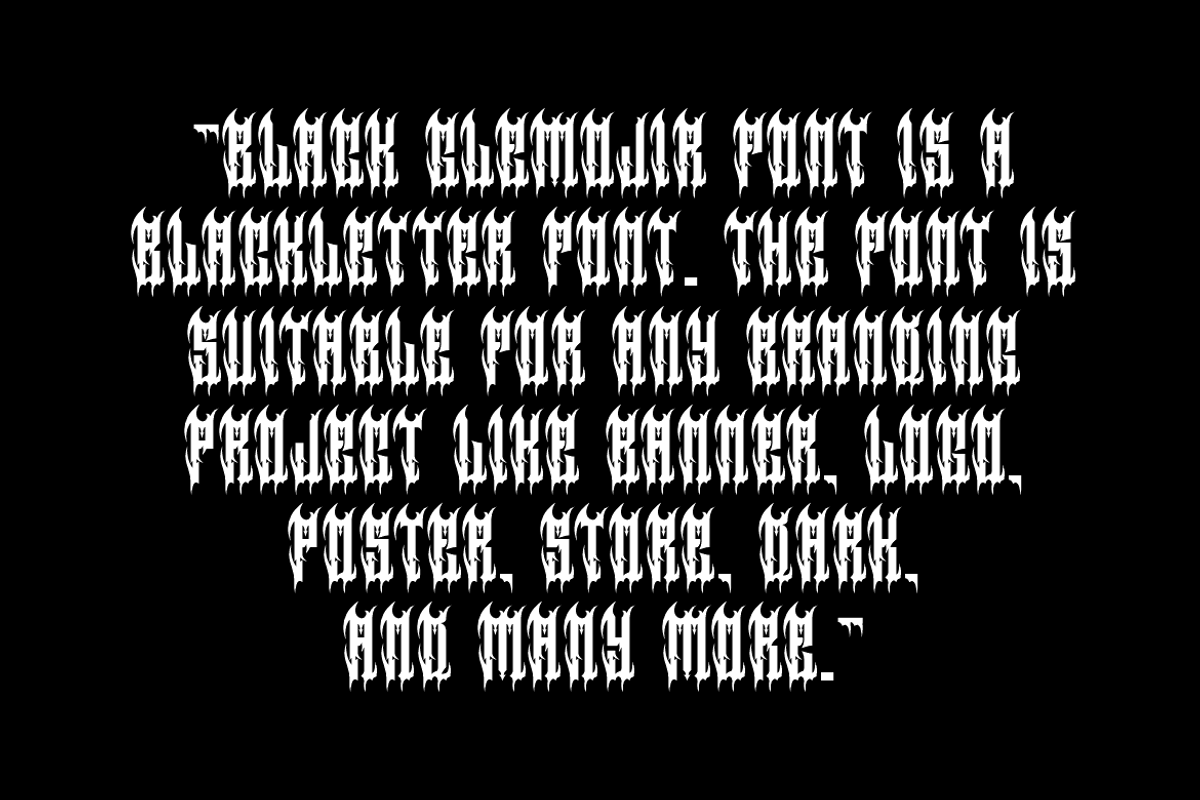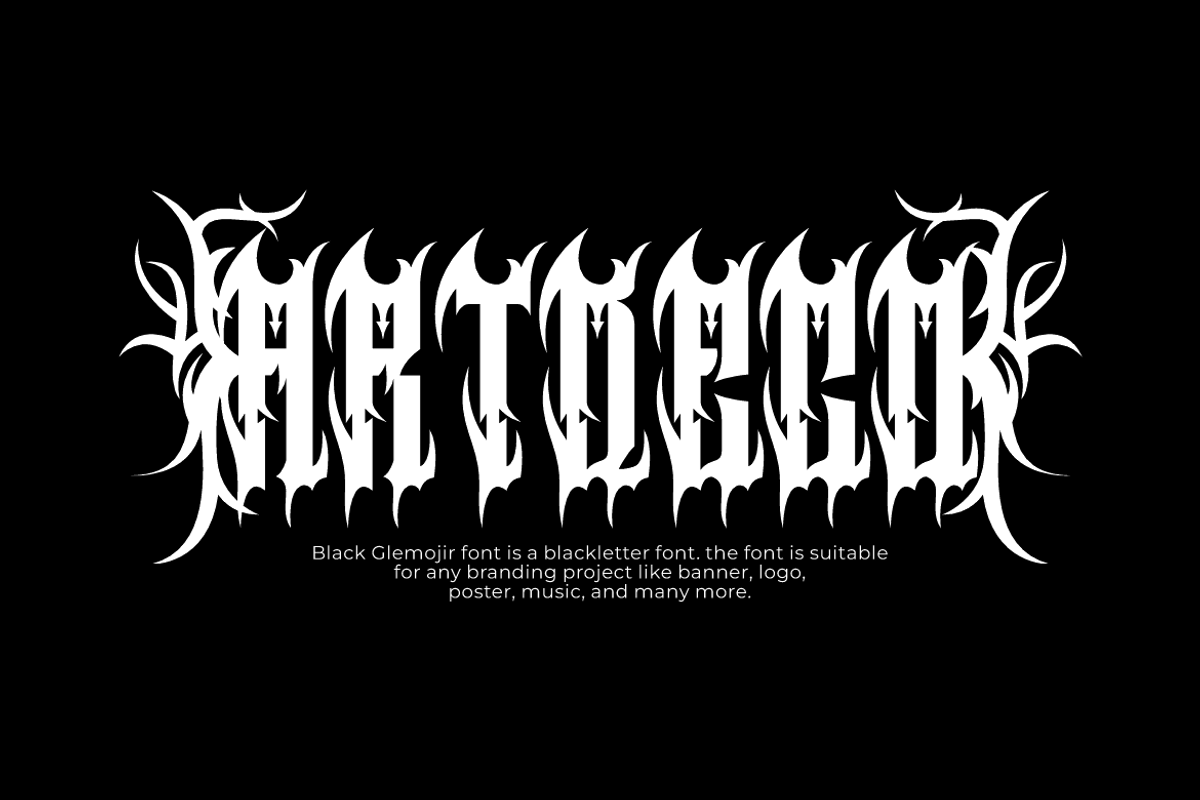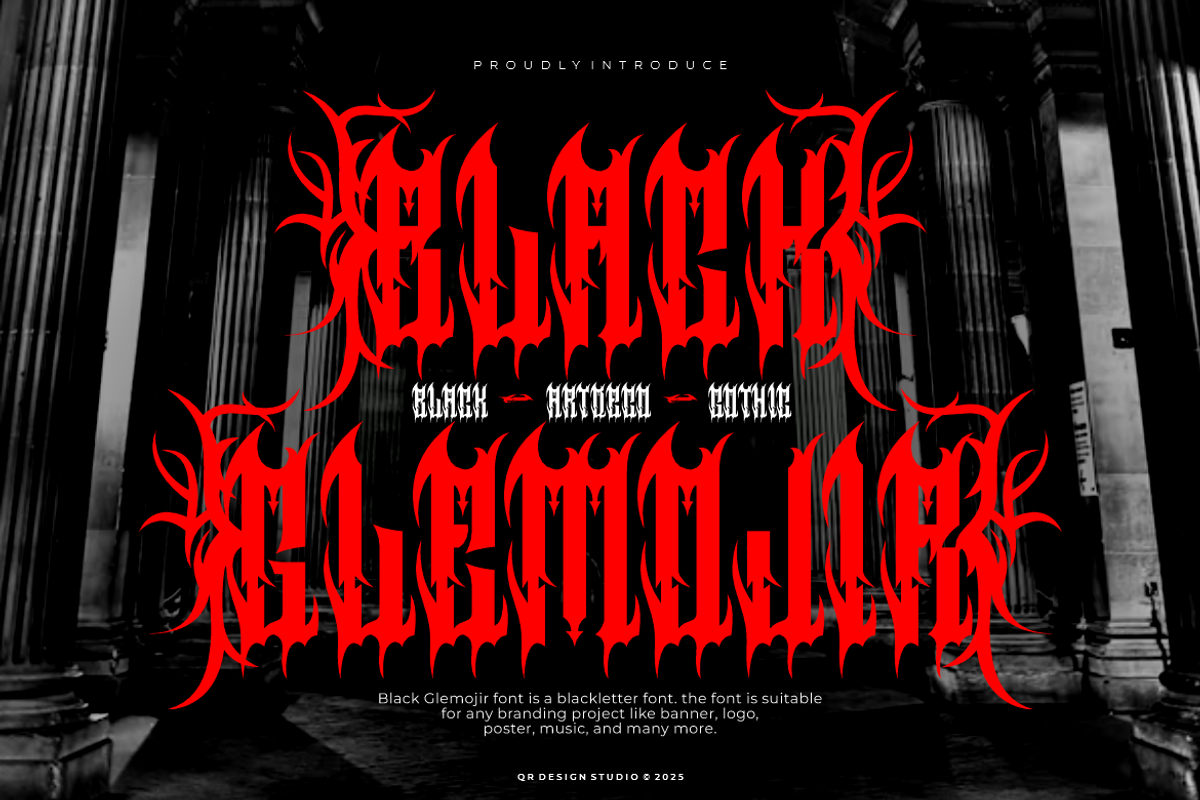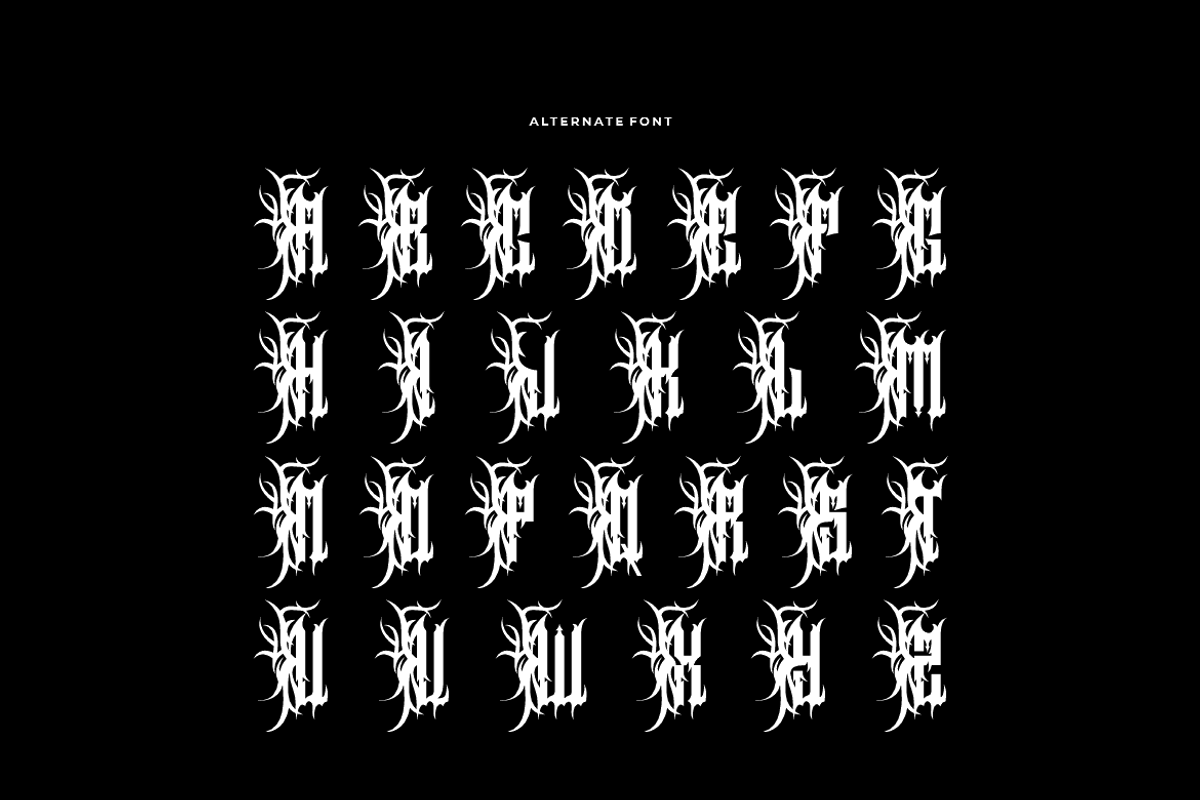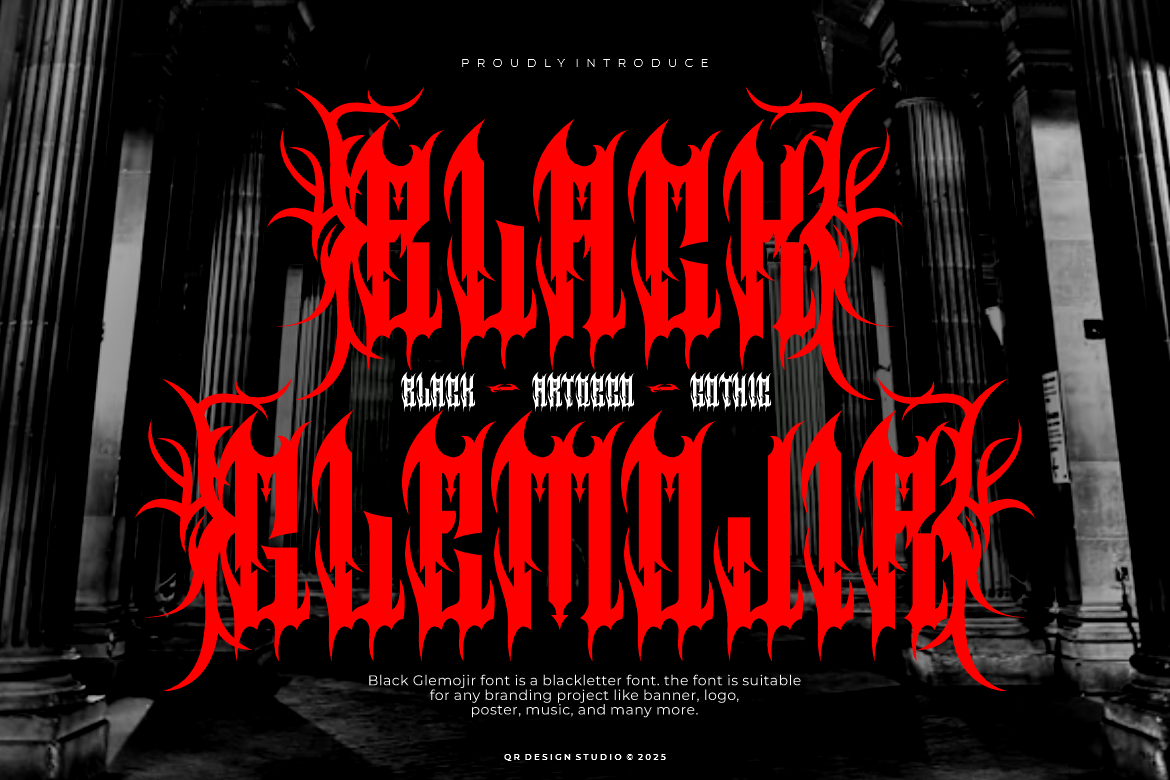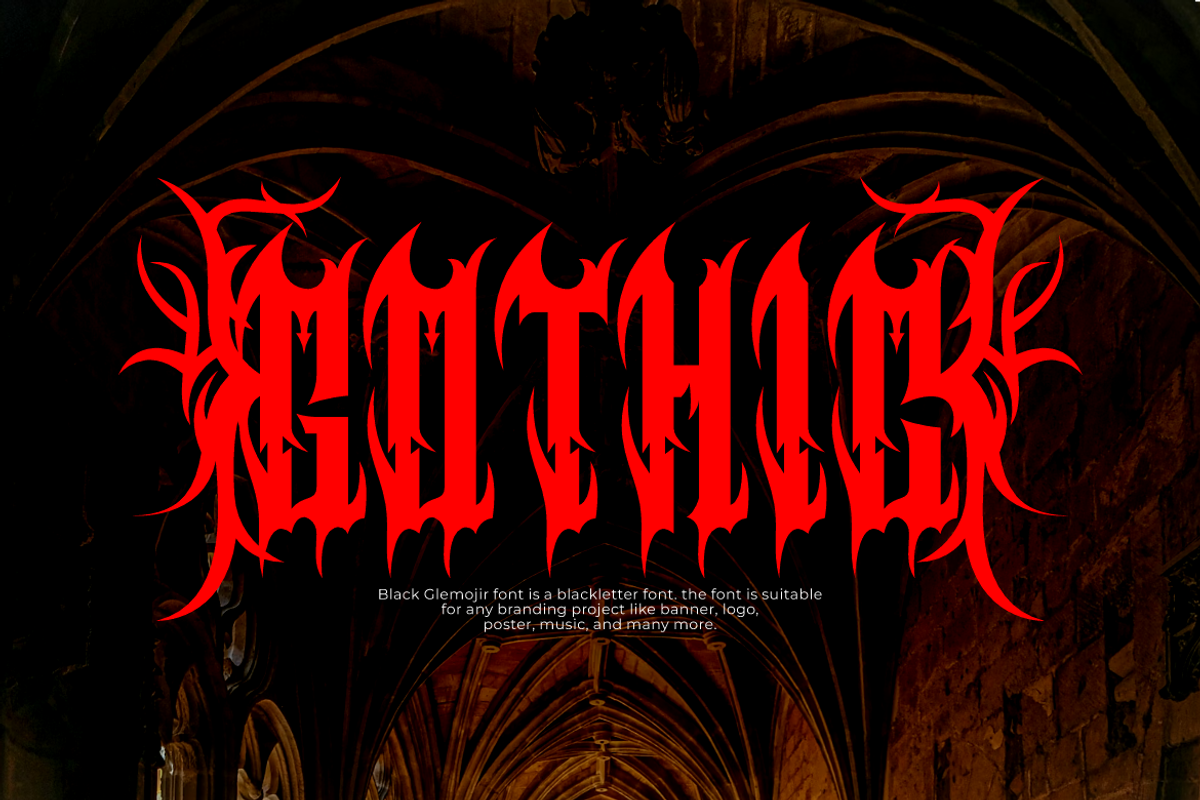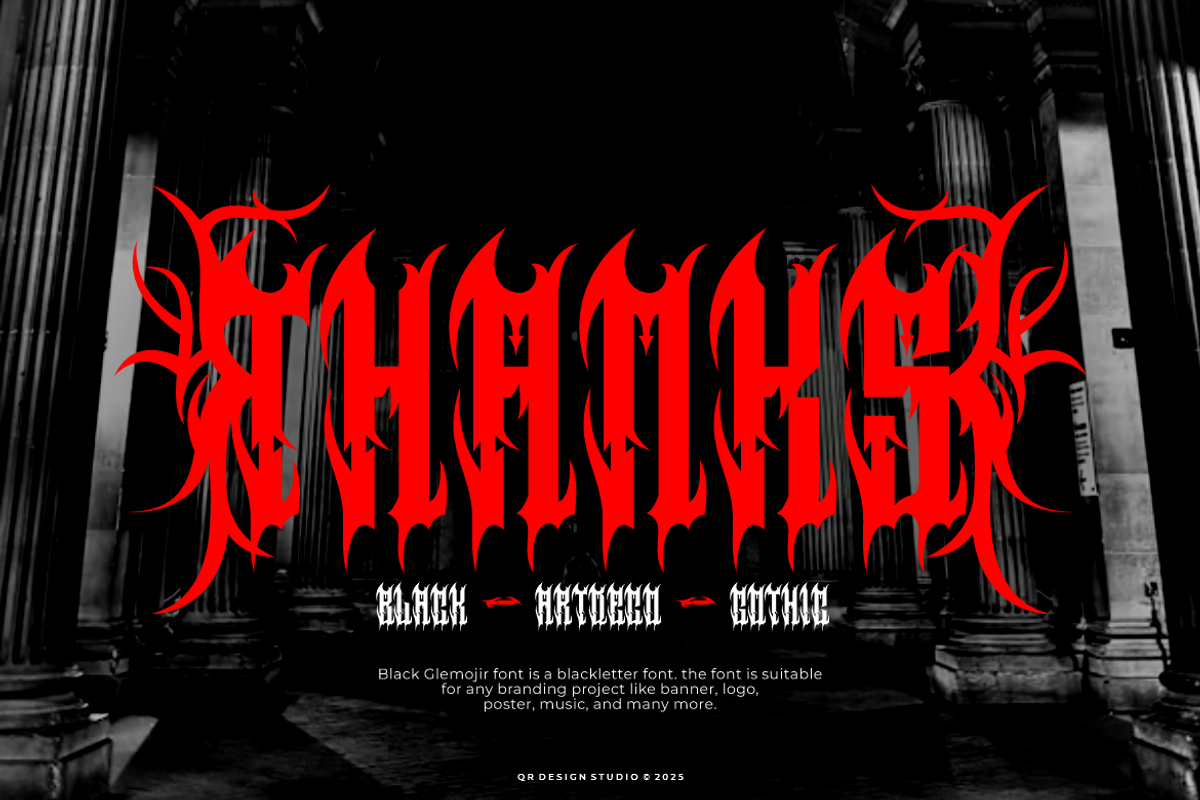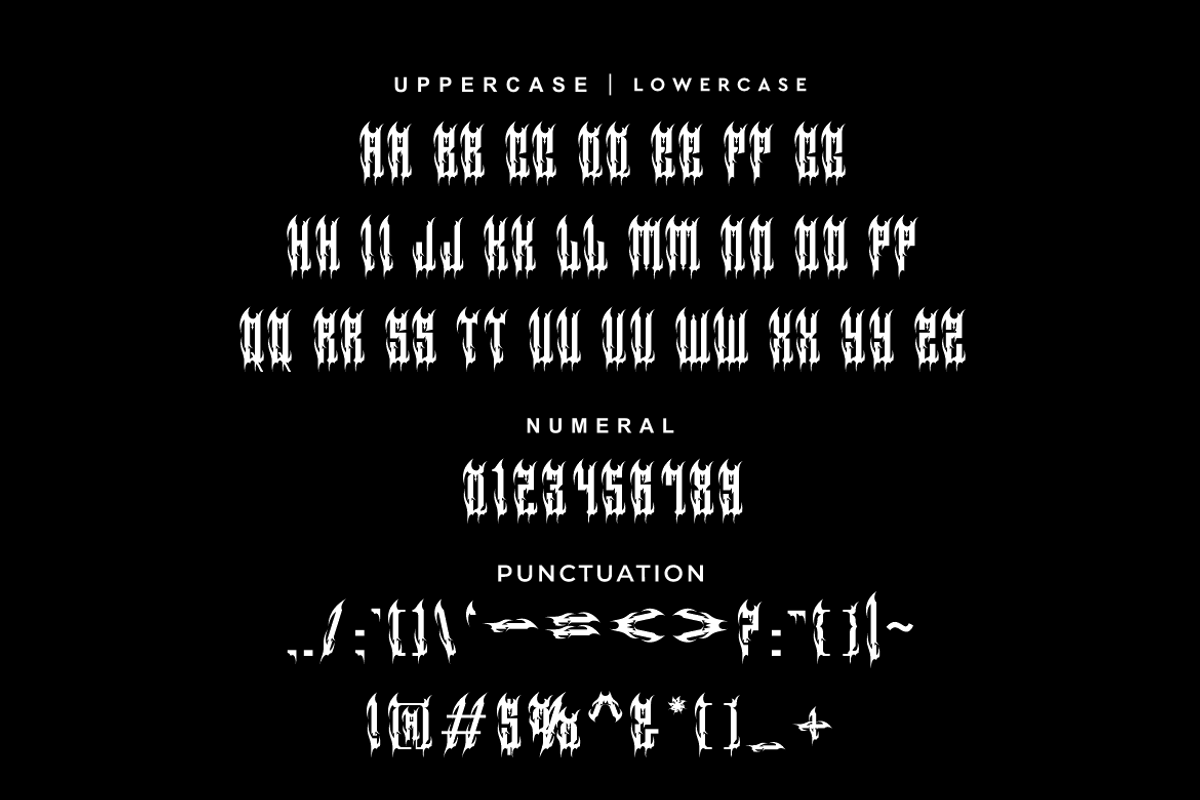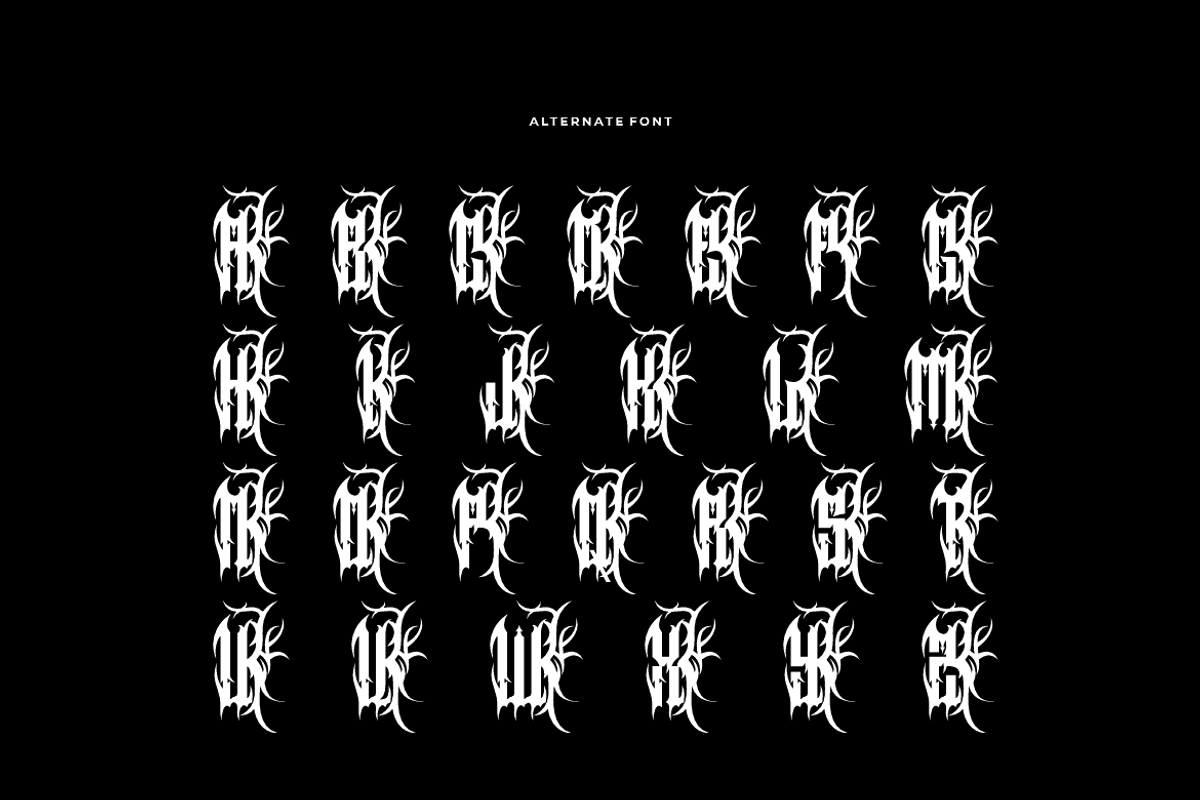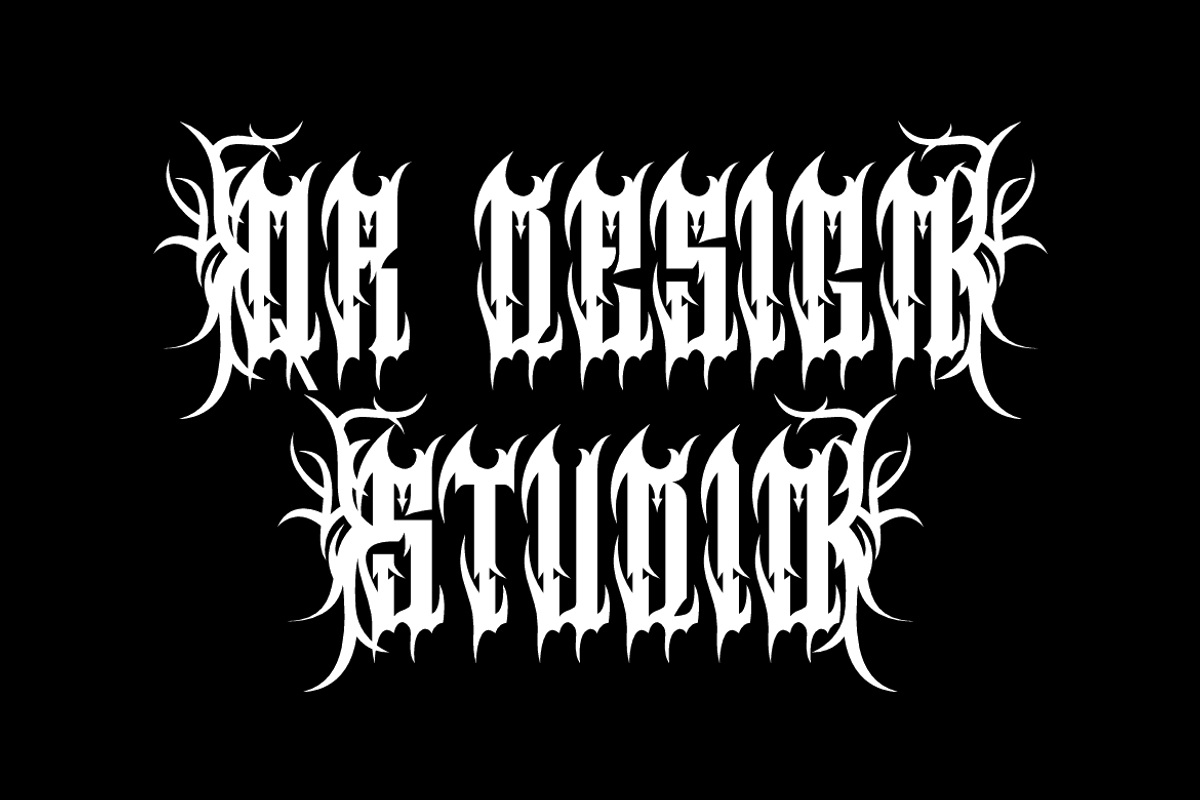
Black Glemojir - Medieval Font
Black Glemojir Font is a blackletter and authentic display font. The font is suitable for any branding project like poster, logo, sport, and many more. Outstanding in a wide range of contexts.